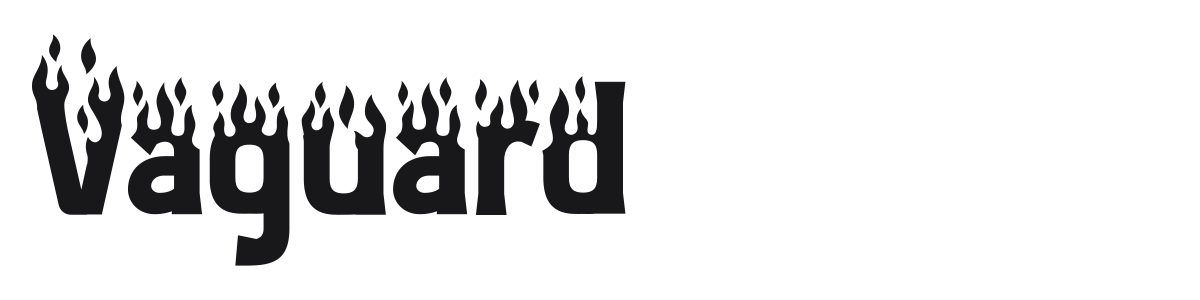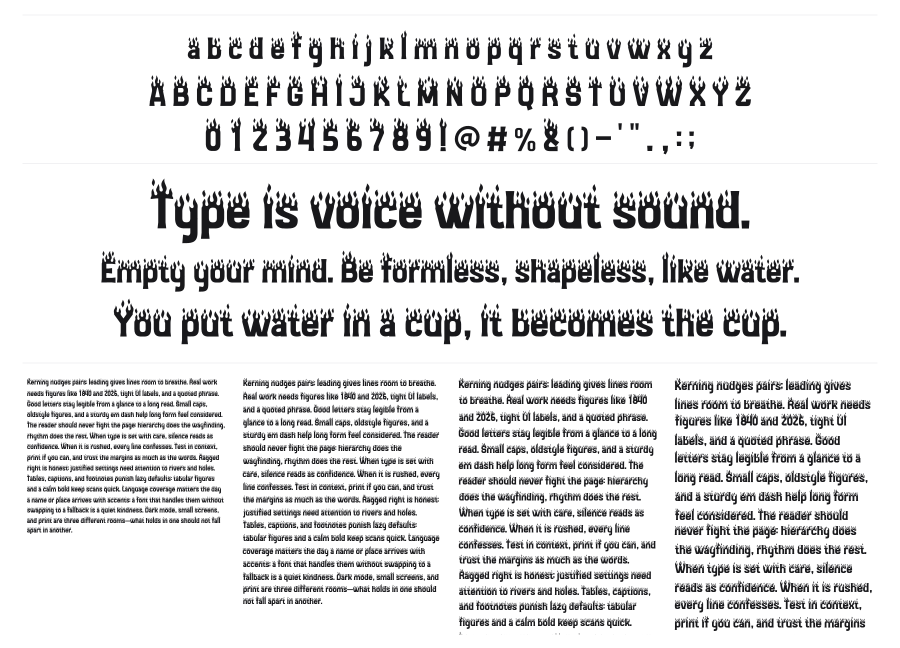
Vaguard
Vaguard is a heavy display font where every character is crowned with flame silhouettes that burst upward from the letterforms. The thick, blocky base characters provide solid structural weight while the fire tops bring raw, chaotic energy. It suits anywhere intensity and attitude matter: band logos, game titles, hot sauce branding, event posters.